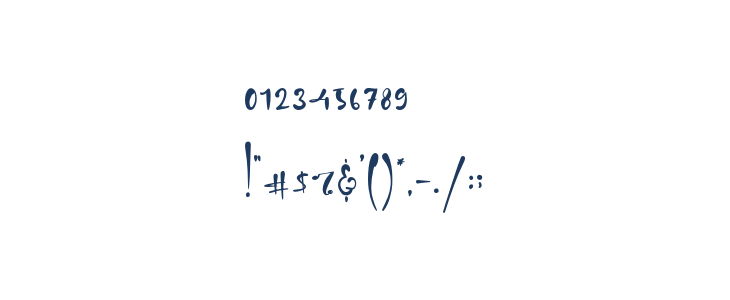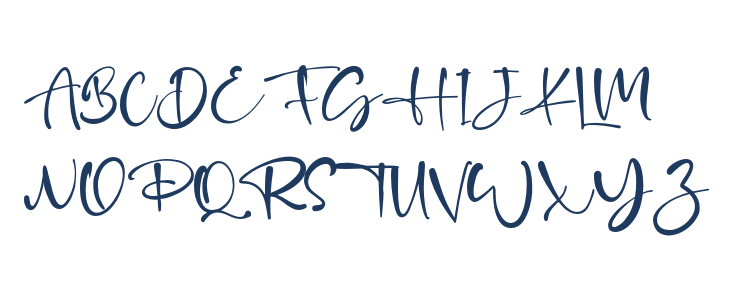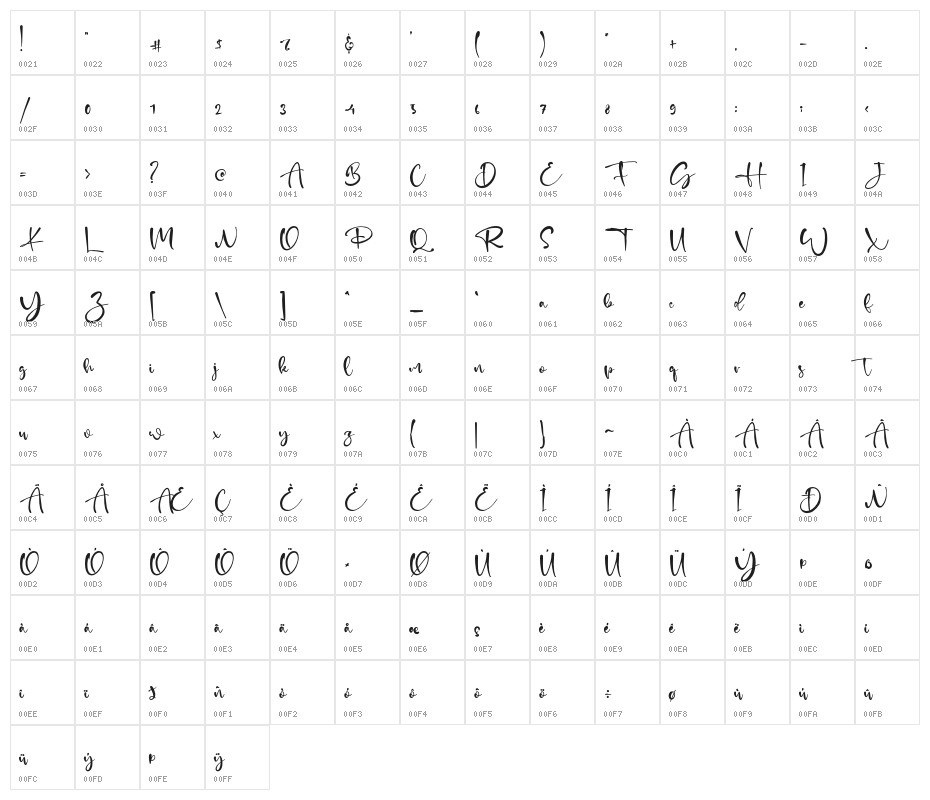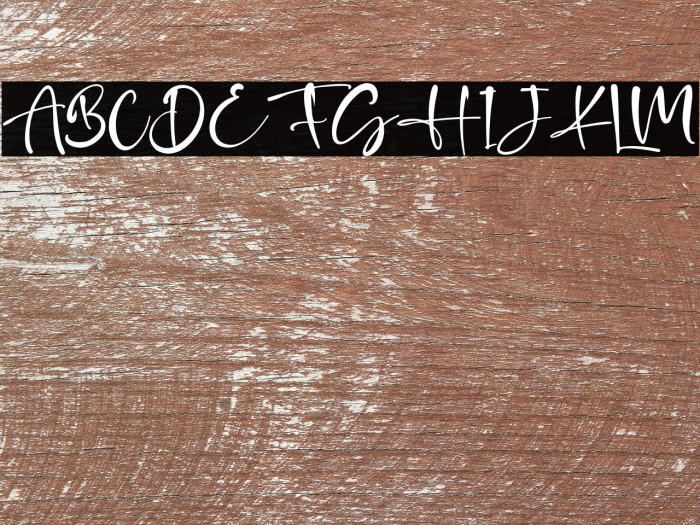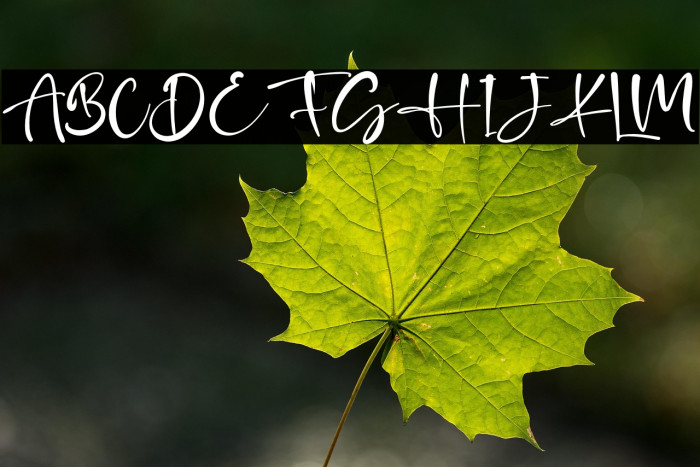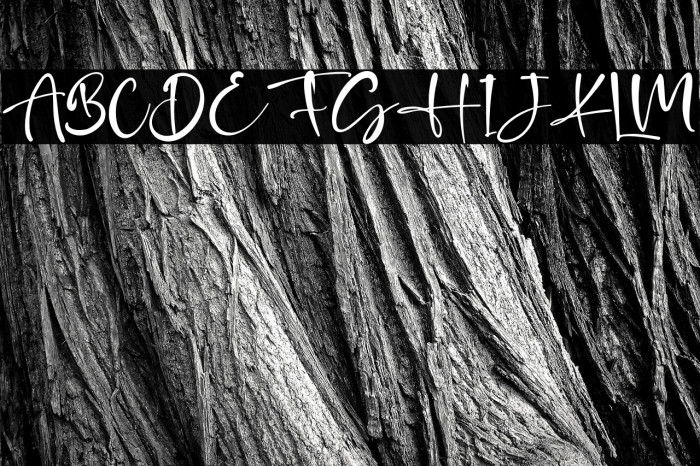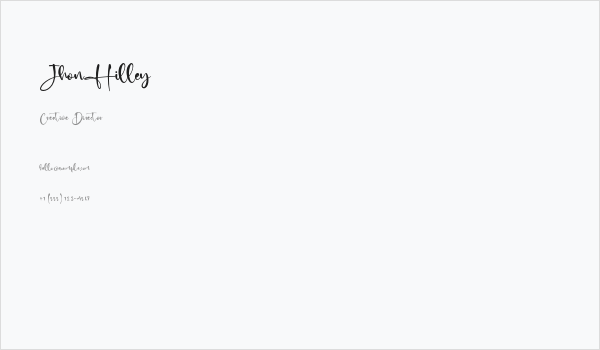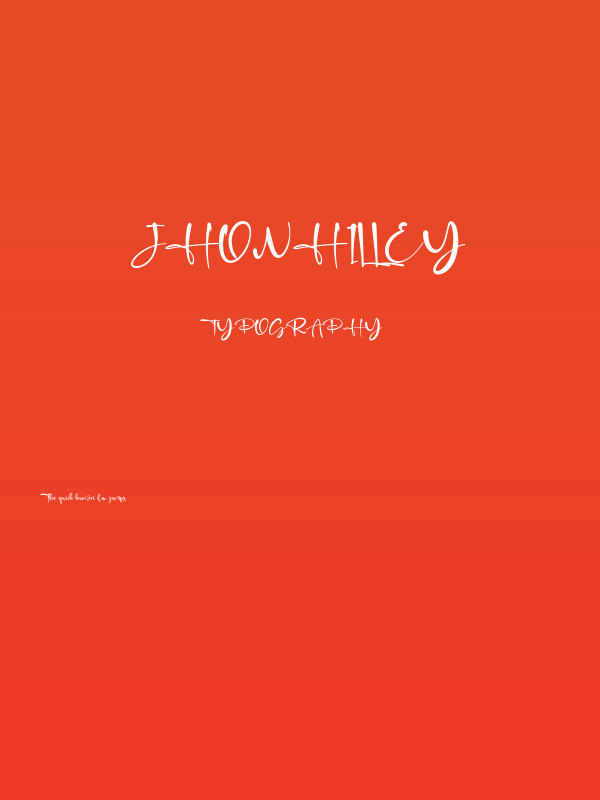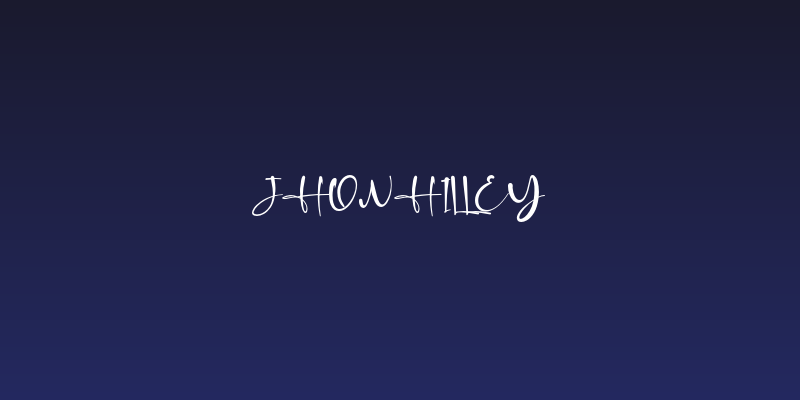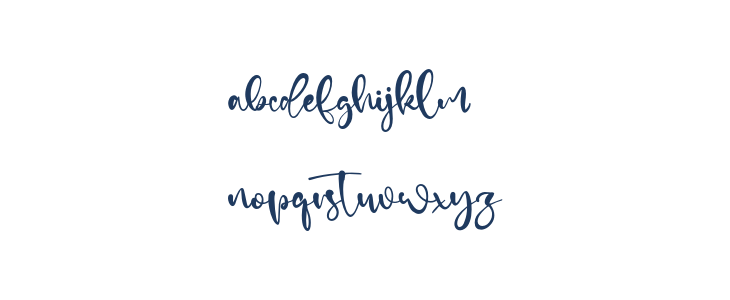
JhonHilley Font
JhonHilley Description
A playful, handwritten script font with fluid, connected strokes and a casual, modern feel. The characters are slightly irregular, giving a personal and informal touch. The uppercase letters are tall and expressive, while the lowercase letters are rounded and friendly.
| Overall Style | Decorative, Modern, Playful |
| Use Case | Logos, Headlines, Invitations, Social media posts |
| Proposed Projects | Greeting cards, invitations, social media graphics, branding, quotes, posters. |